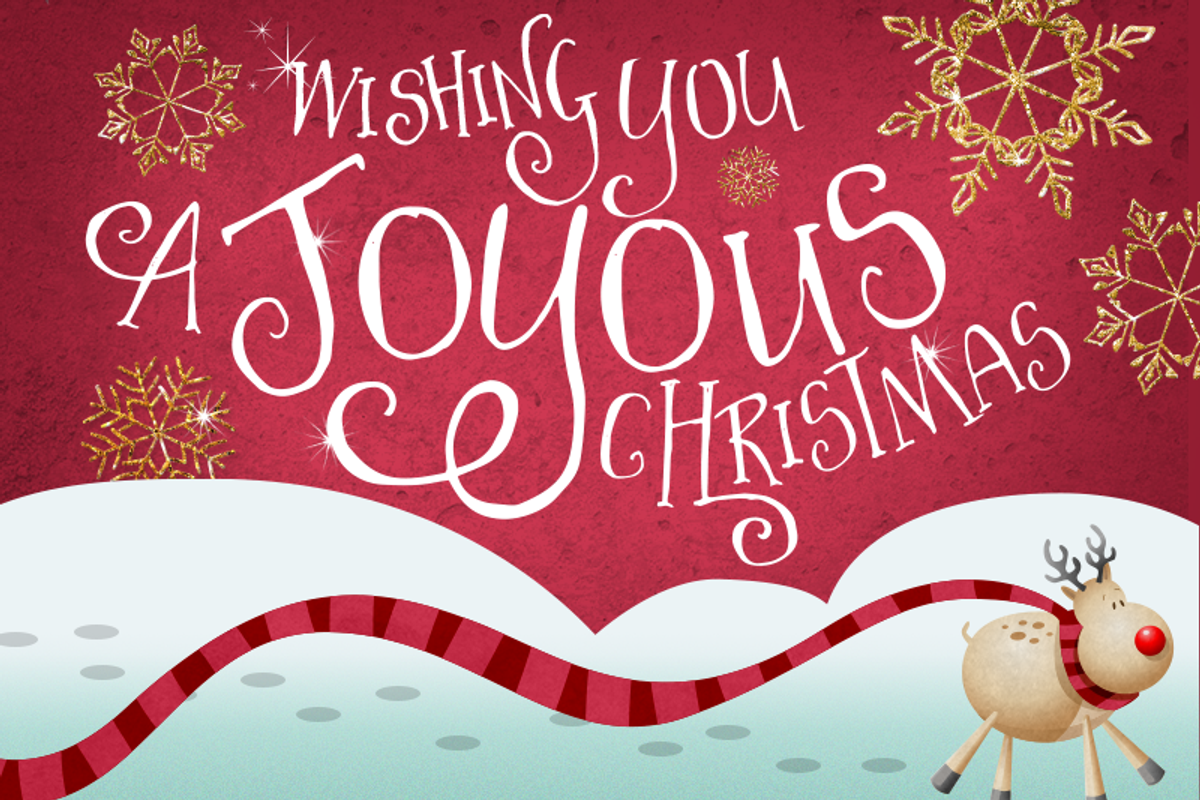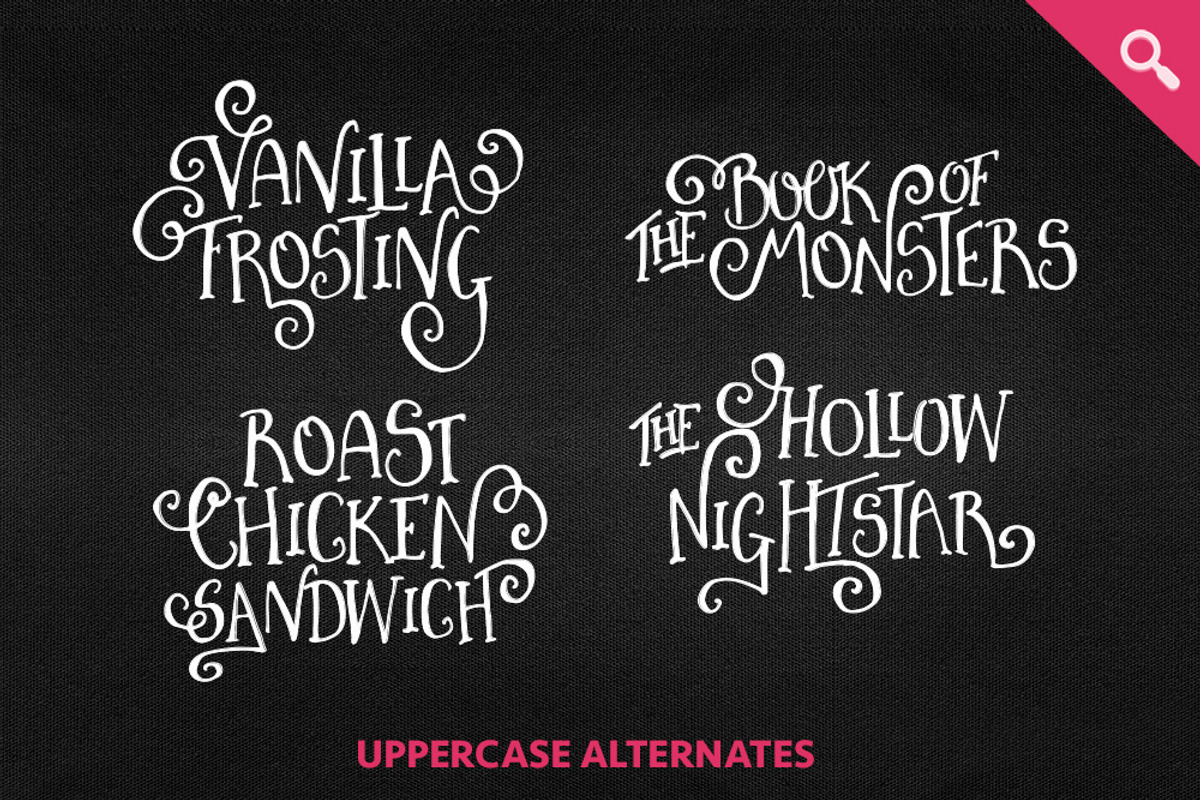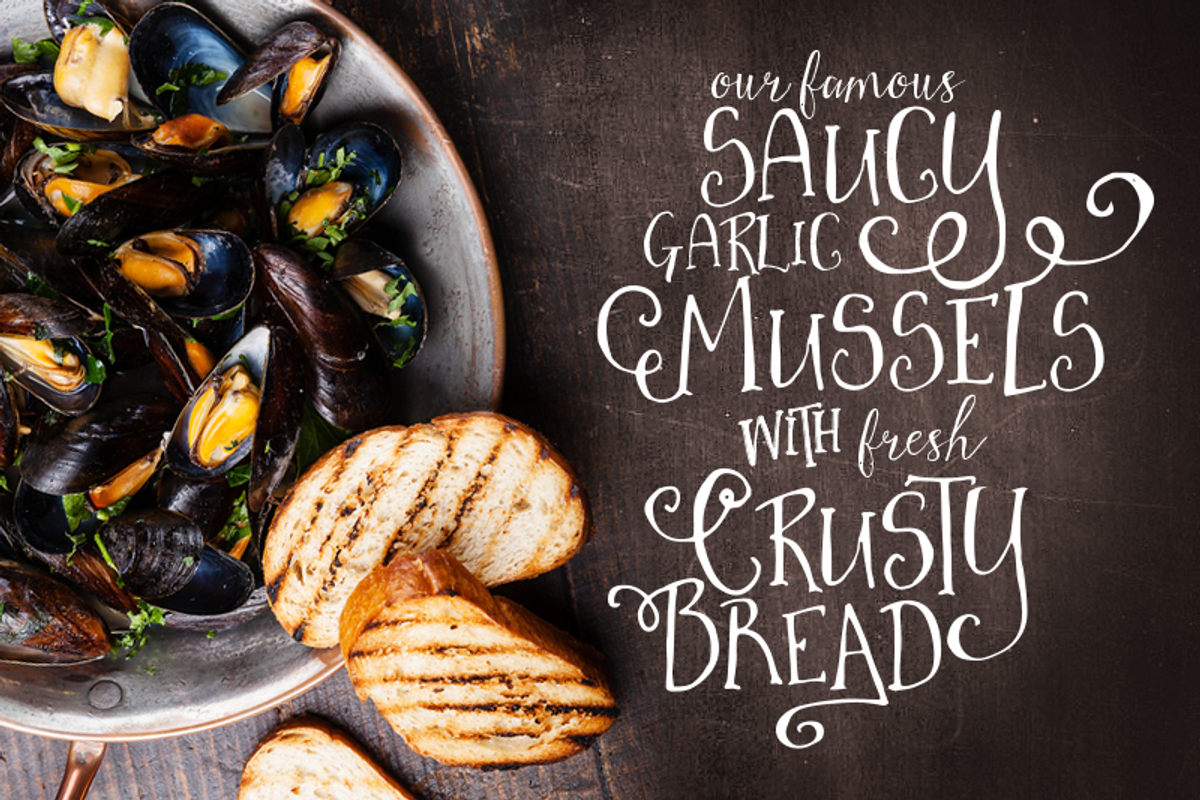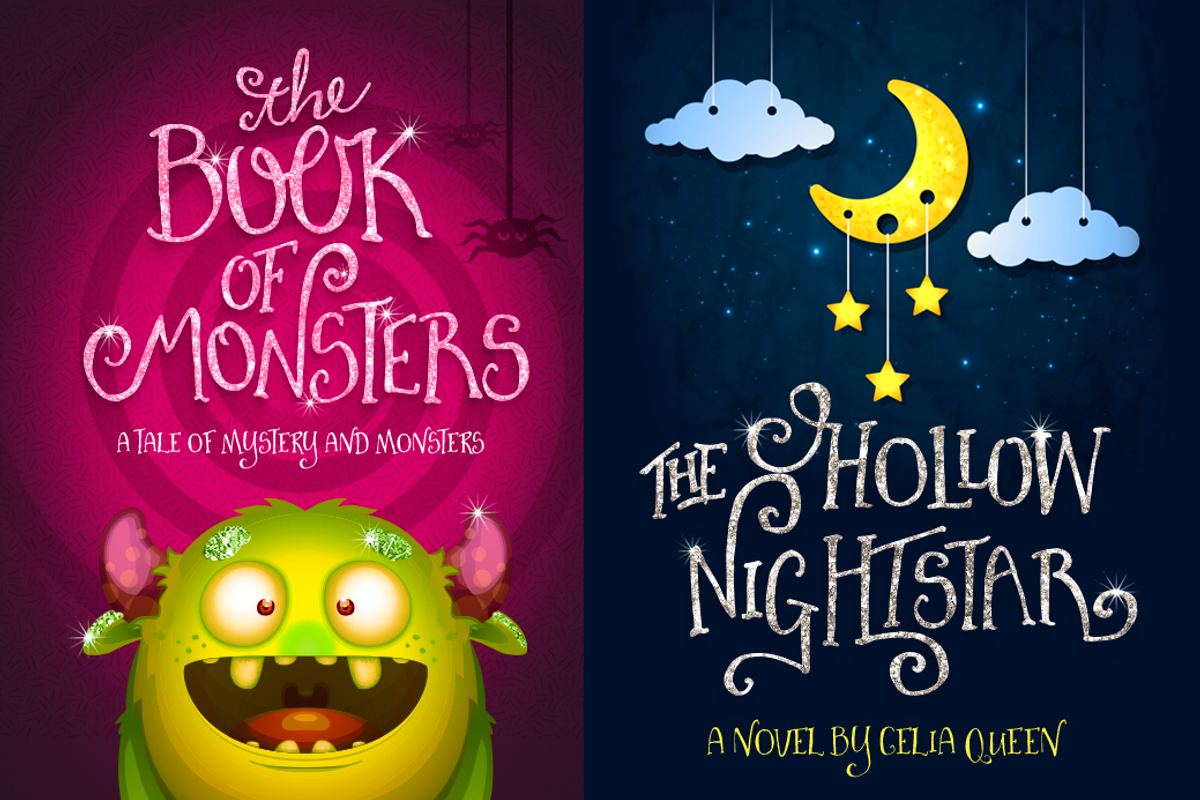
Vanilla Frosting Typeface
Vanilla Frosting Typeface by Nicky Laatz is a font selected for branding, posters, packaging, typography.
- INTRODUCING VANILLA FROSTING - A fancy fun new hand-illustrated typeface - made with oodles of love, swashes, alternates and catchwords!
- It has loads of alternates,swashes and catchwords - It has been designed with intention to create very unique and one-of-a-kind branding/des
Why Vanilla Frosting Typeface is worth a look
Vanilla Frosting Typeface by Nicky Laatz fits naturally into Branding, posters, packaging, typography.